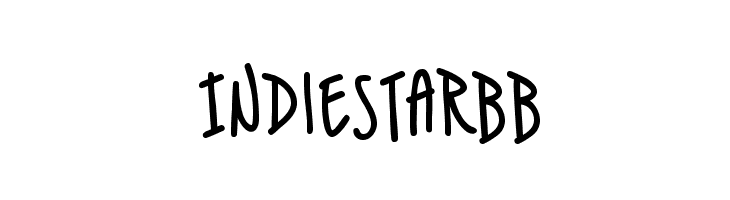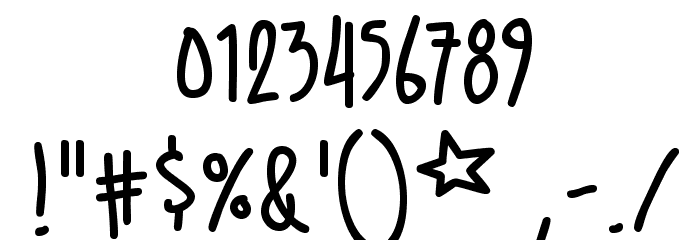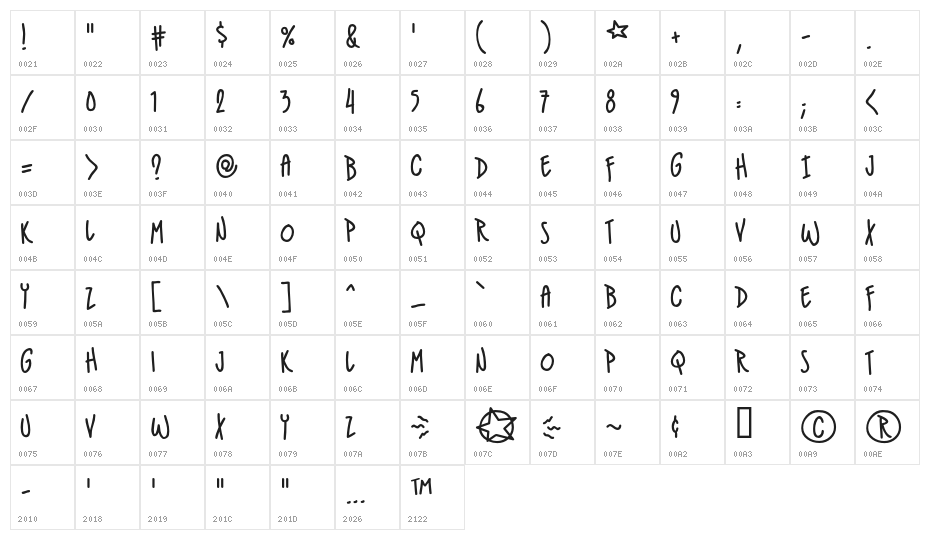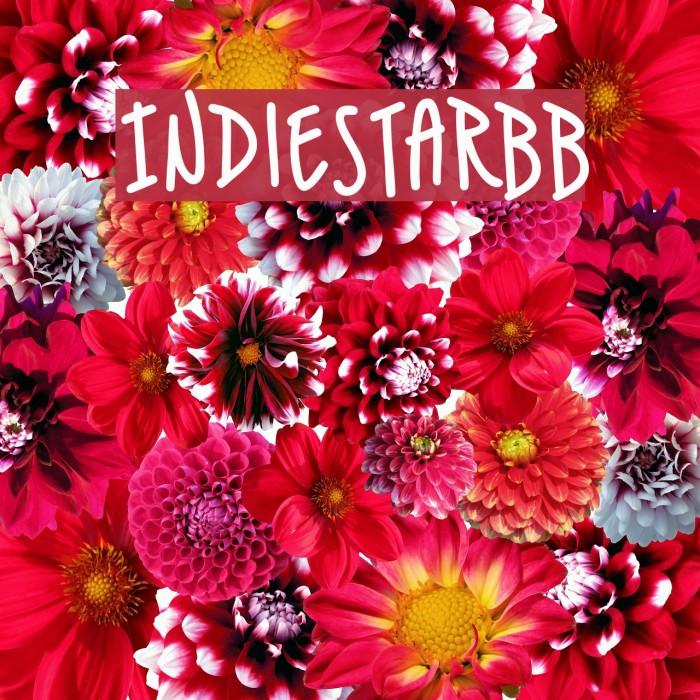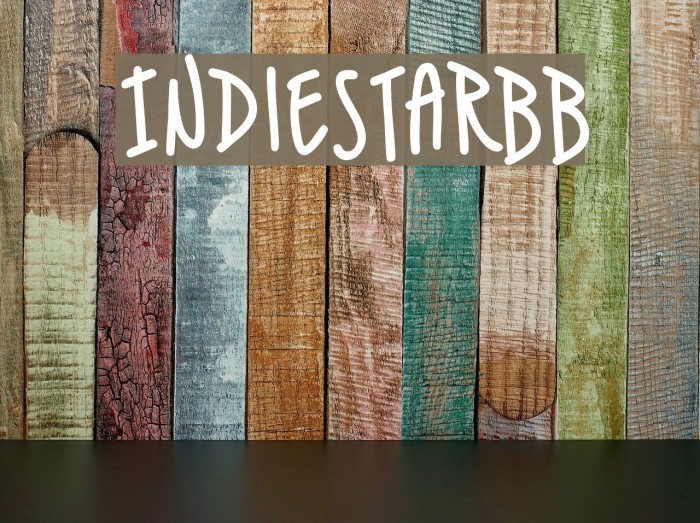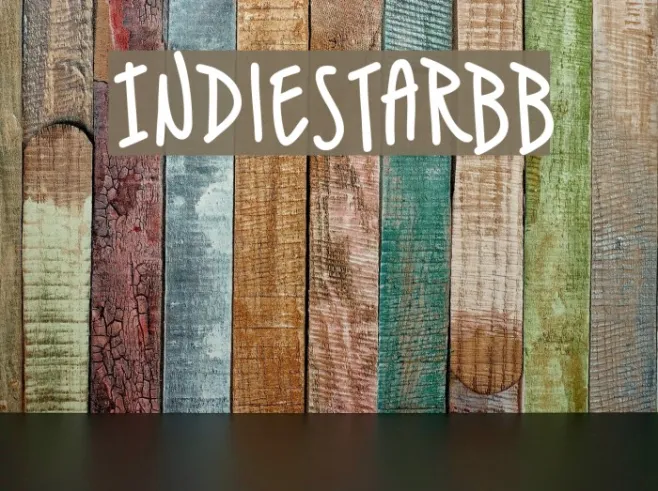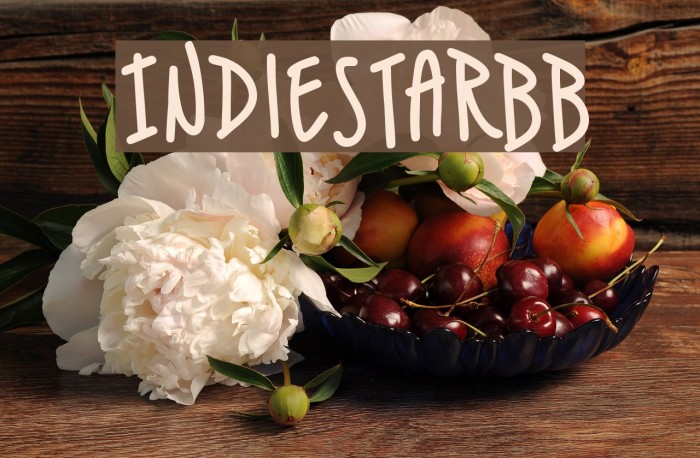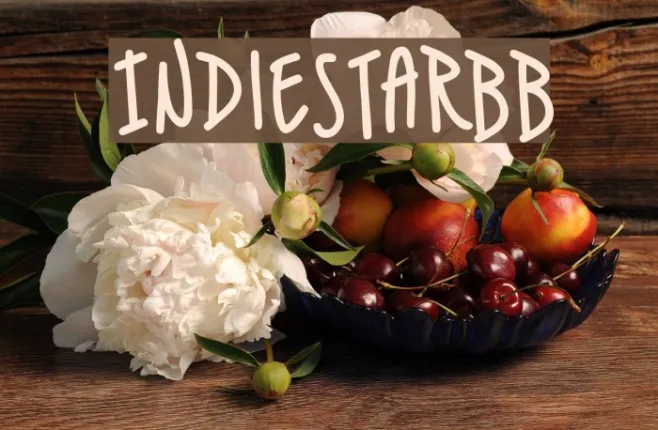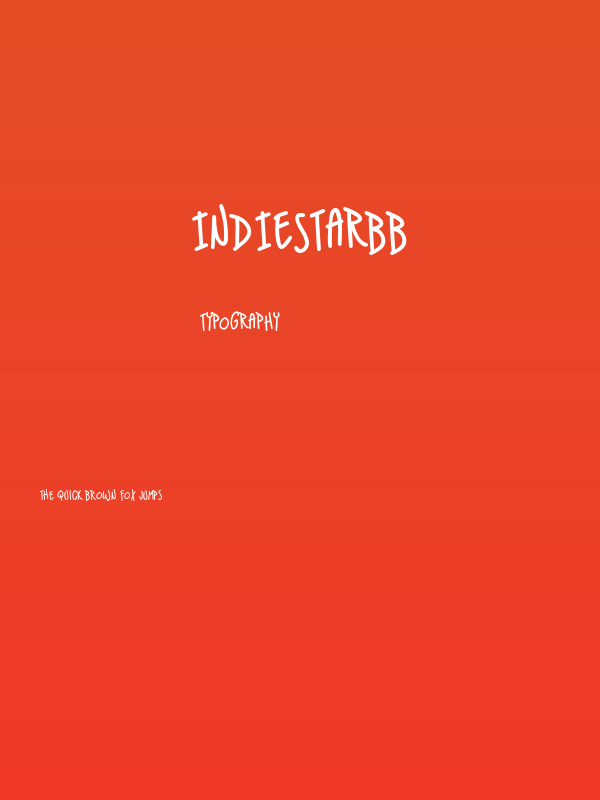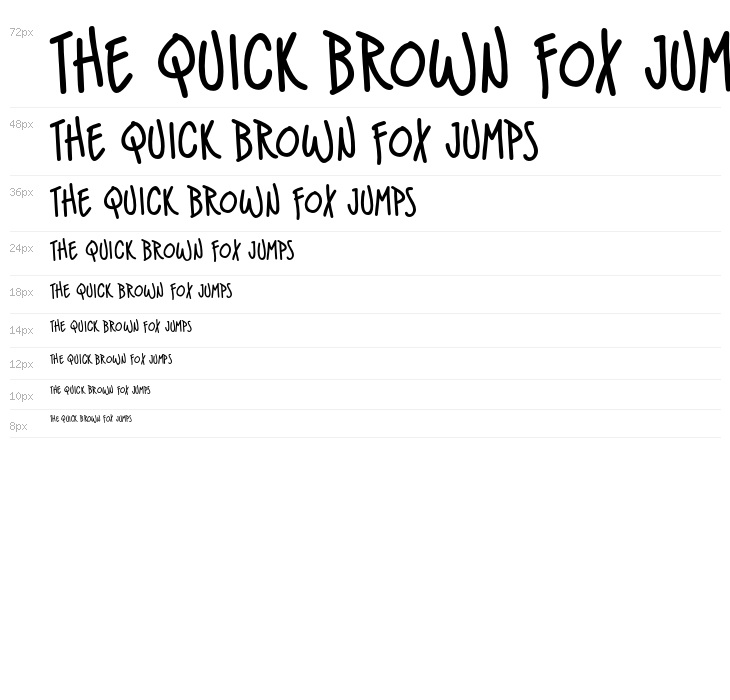
IndieStarBB Font
IndieStarBB Description
This playful and informal font features a handwritten style with a casual, friendly appearance. The characters are slightly irregular, adding a touch of whimsy and personality. The strokes are consistent in width, giving it a uniform look despite its informal nature. The letters are well-spaced, ensuring readability while maintaining a relaxed feel. This font includes a full set of uppercase and lowercase letters, numbers, and a variety of special characters, making it versatile for various design needs.